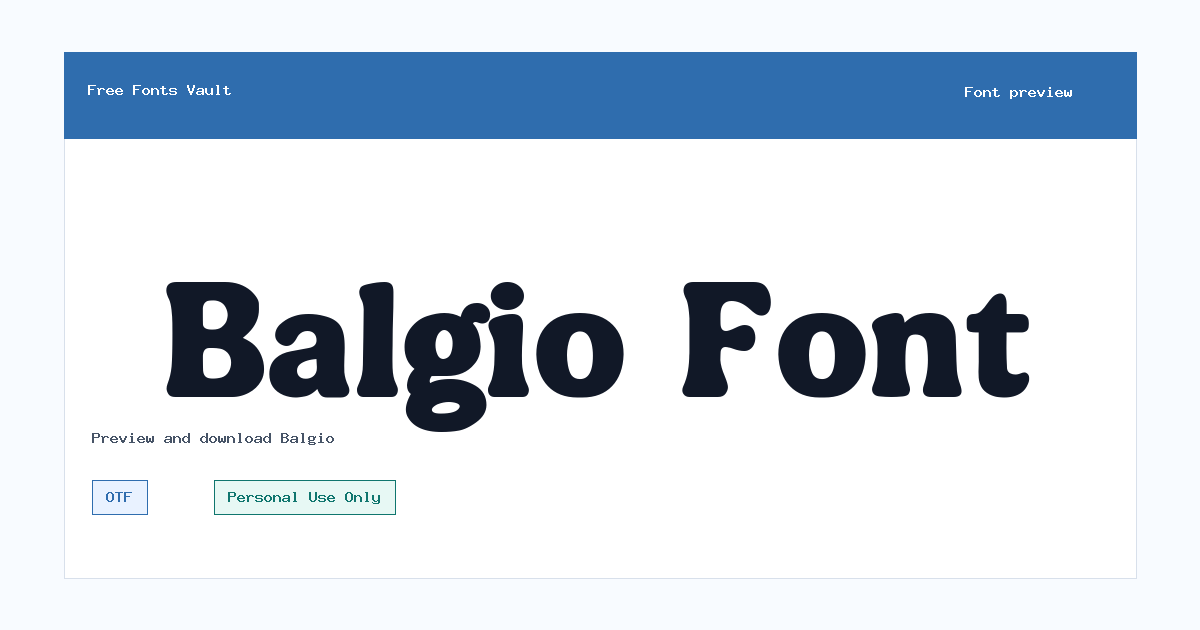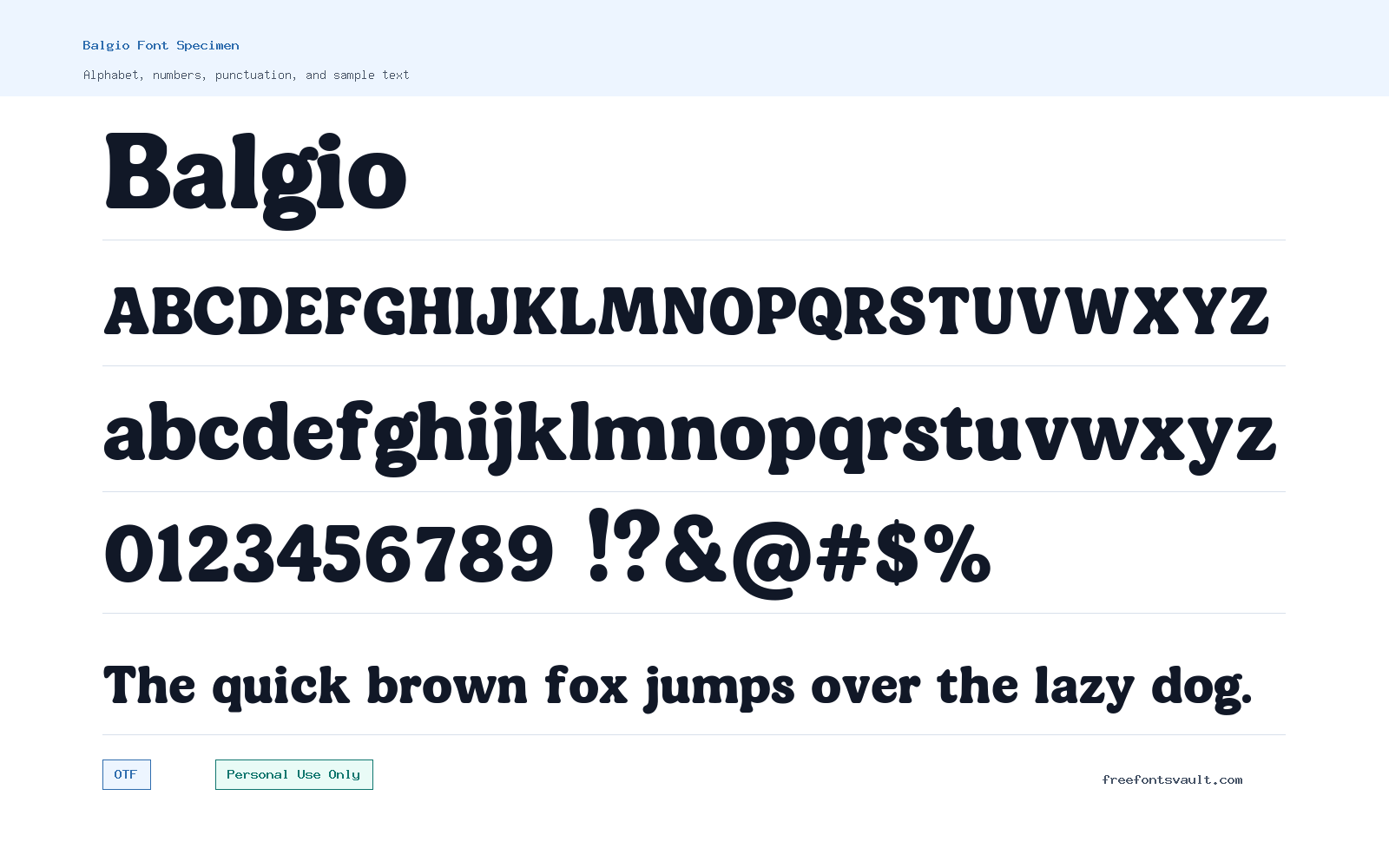
Balgio
- Designer Muhammad Asroful Umam
Balgio is a slab serif display font with a solid, confident look. It works best when you need short text to feel clear, sturdy, and more expressive than a plain serif.
About Balgio Font
Balgio has the kind of structure people often look for in a slab serif: firm letterforms, noticeable serifs, and a grounded rhythm that can make words feel more substantial. Because the available style is a regular-weight OTF font, it is a practical choice for testing headlines, title graphics, packaging mockups, social posts, and other designs where the font can be shown at a comfortable size. It is not the kind of typeface to judge only from a small sample. Try your own words in the preview, especially if the design will use brand names, short phrases, or mixed uppercase and lowercase text.
For best results, use Balgio where the lettering has room to breathe. It can bring weight and personality to posters, badges, labels, quote graphics, menu headings, thumbnail text, and editorial-style headers. Keep body copy in a simpler companion font, because slab serif display faces can feel busy when used for long paragraphs or small mobile text. A clean sans serif can balance Balgio well for descriptions, navigation, and supporting details. If you are working on a design with many words, test line spacing and letter spacing before finalizing the layout. The font’s stronger shapes are likely to stand out most in short, direct settings.
- Slab serif display style that is better suited to headings and short text than long reading passages.
- Poster titles, social media graphics, labels, badges, and display headings.
Balgio is credited to Muhammad Asroful Umam.
What kind of font is Balgio?
Balgio is presented as a slab serif font. Its stronger serif structure makes it more useful for display text than for long paragraphs.
Where does Balgio work best?
Use it for short, visible text such as titles, posters, labels, badges, social graphics, and headings. Give it enough size and spacing so the slab serif details stay clear.